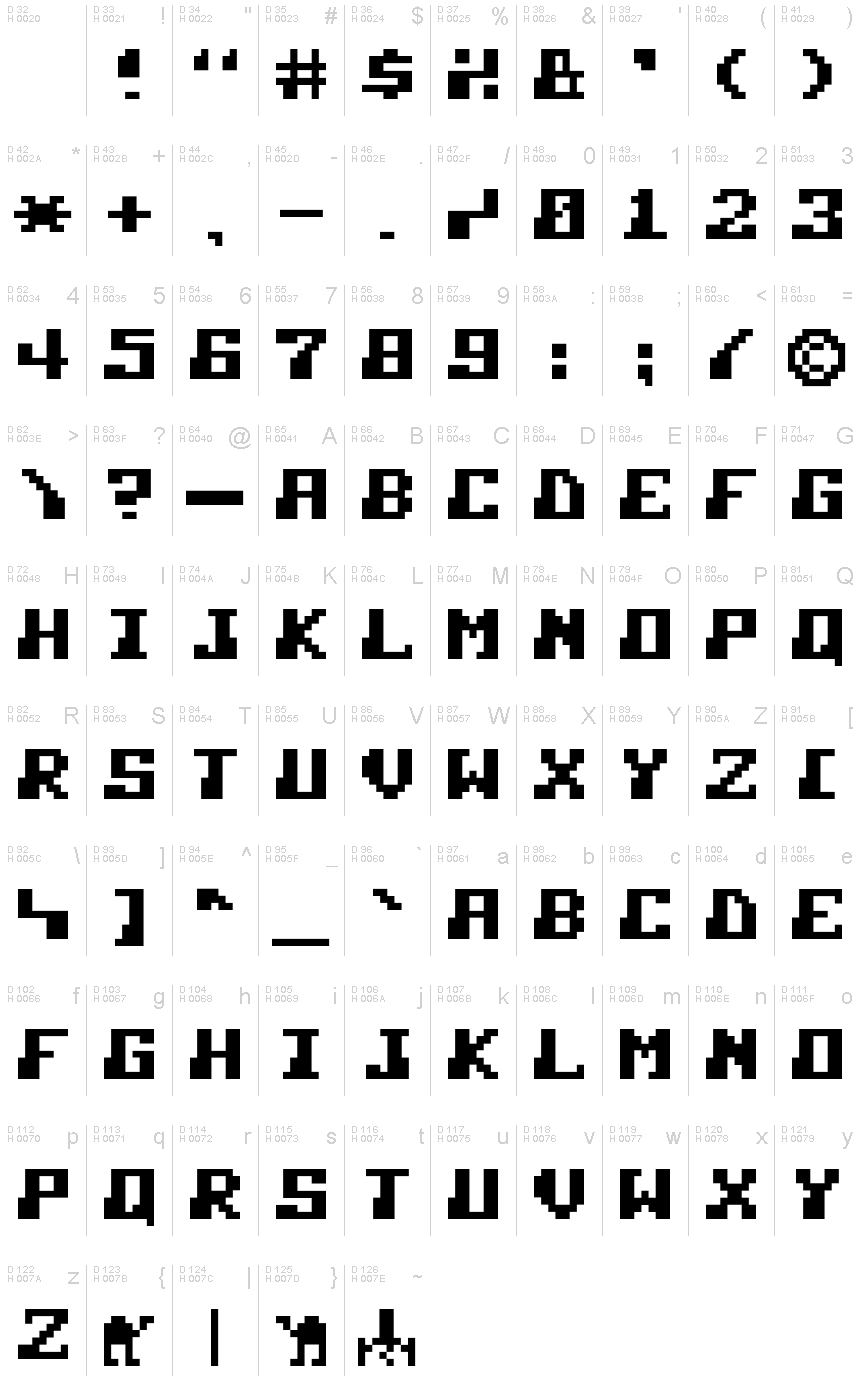
Mutant Camels is a bold, pixelated font that exudes a sense of rugged, retro-futuristic charm. Designed by Omegaville, this bitmap typeface boasts an expanded, geometric silhouette that immediately commands attention. The sharp, pixelated edges create a striking visual impact, evoking a vintage, arcade-inspired aesthetic.
This font would flourish in a range of applications, from eye-catching headlines and retro-themed branding to game user interfaces and sci-fi-inspired designs. Its unique character lends itself well to bold statements, attention-grabbing titles, and a variety of digital and print media. Mutant Camels' distinct personality makes it a compelling choice for designers seeking to inject a touch of quirky, vintage-inspired flair into their projects.
Mutant Camels was built with FontStruct Designer description: <p>Character set from Jeff Minter's Attack of the Mutant Camels, with some extra characters</p>